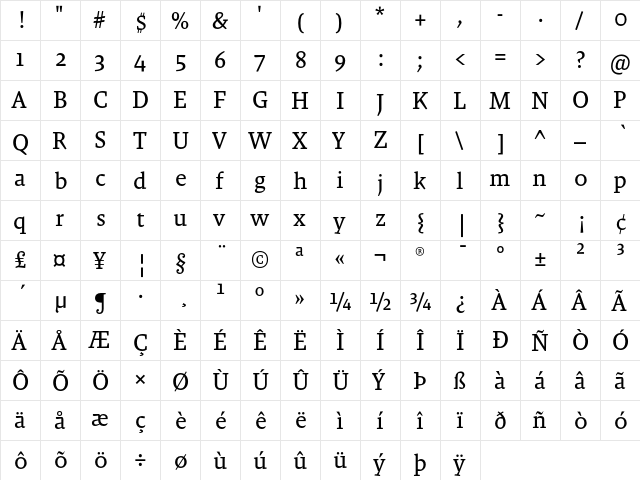
Malaga OT Reg
| Foundry | Emigre Inc. |
| Designer | Xavier Dupre |
Design Context for Malaga OT Typeface
Malaga OT offers clean, dependable letterforms without strong stylistic allegiance, making it a practical choice for designers who need flexibility.